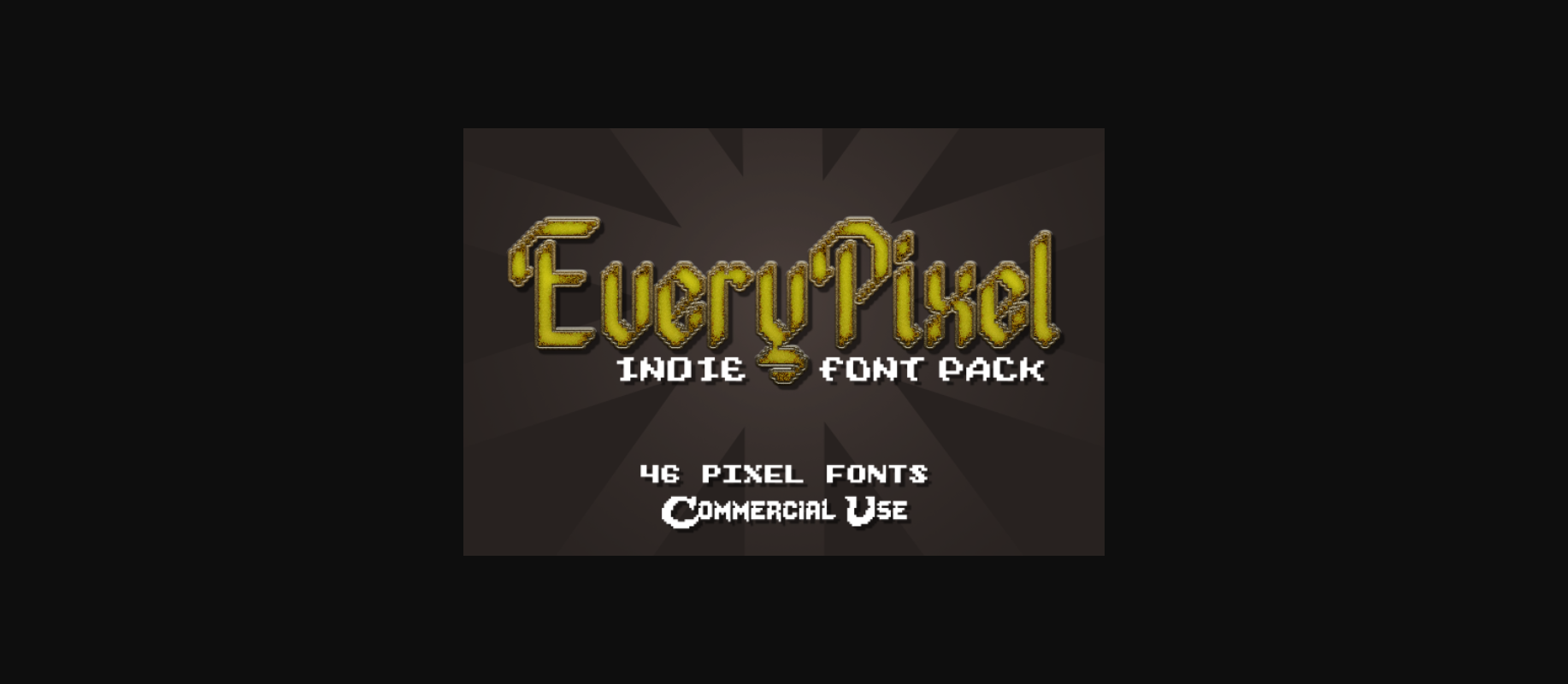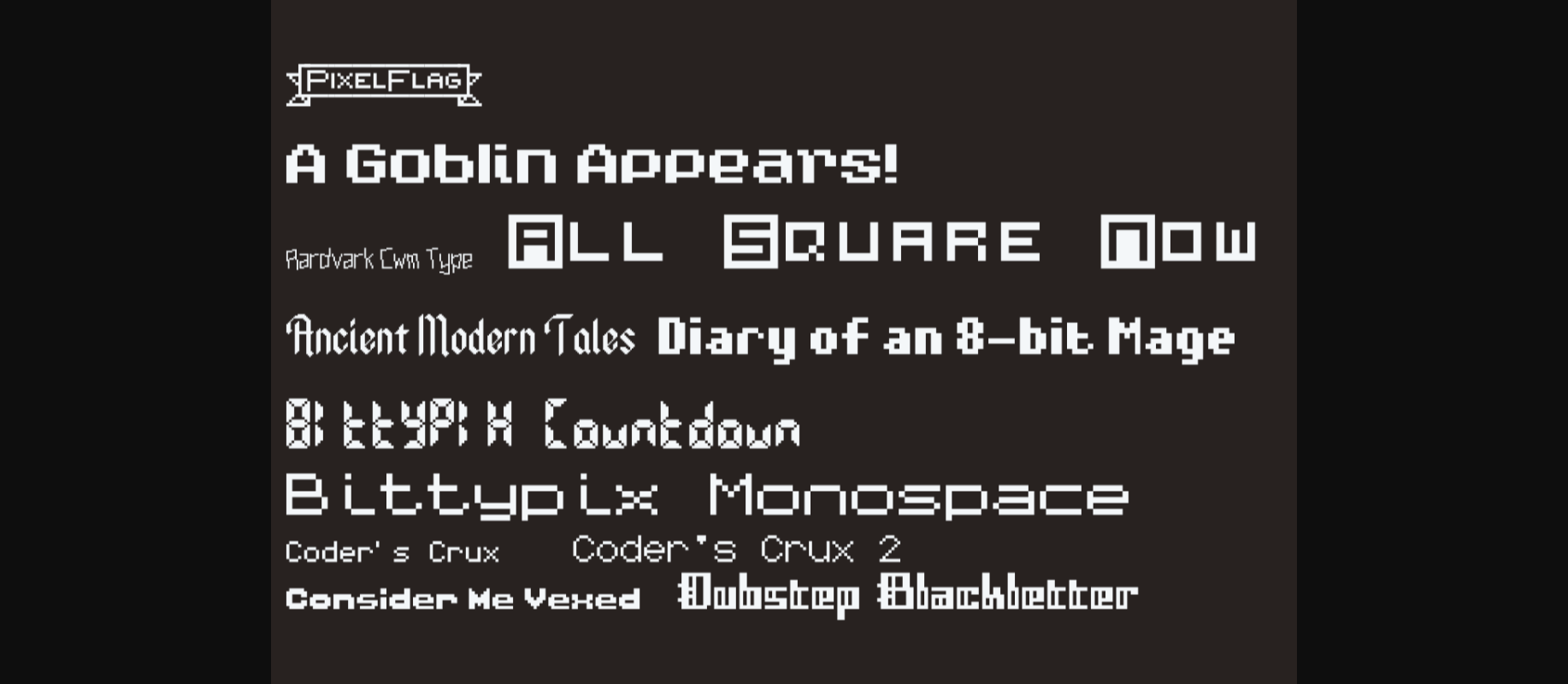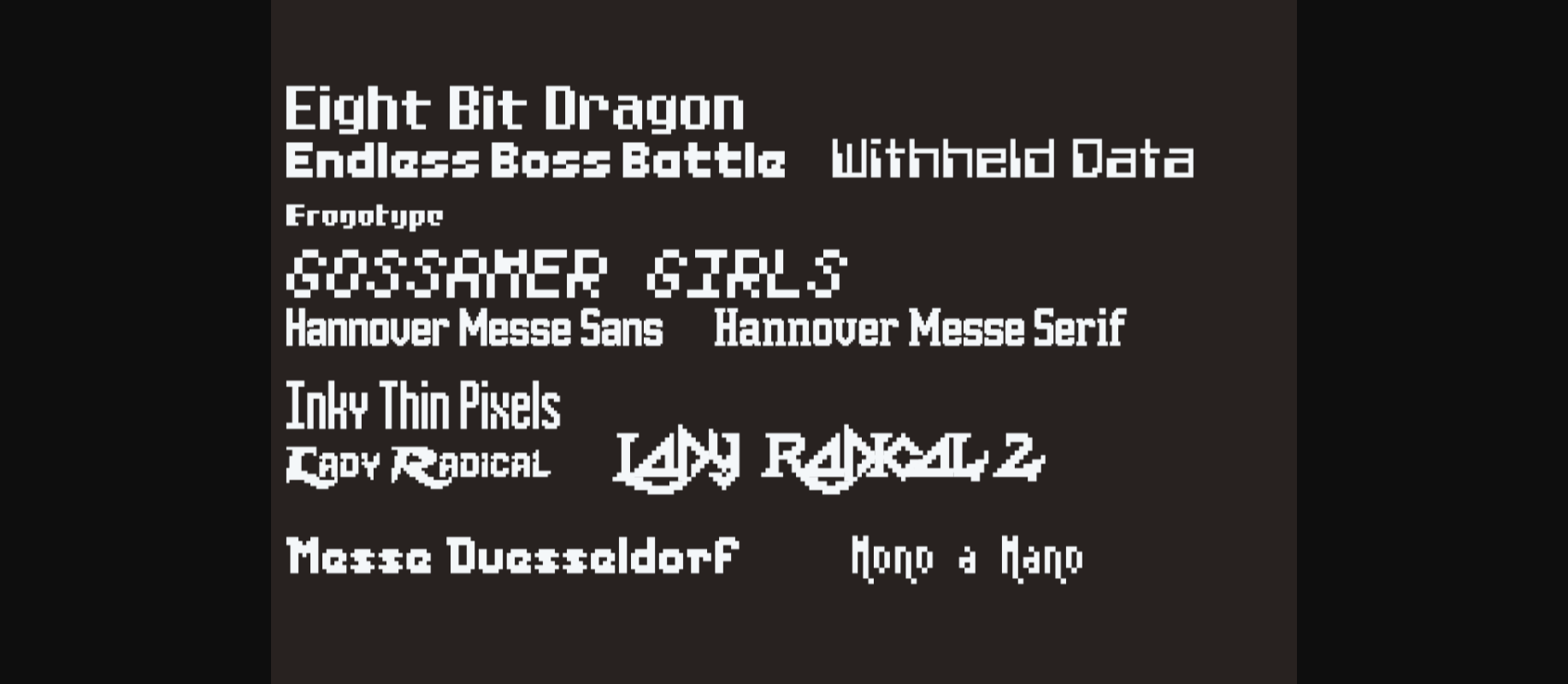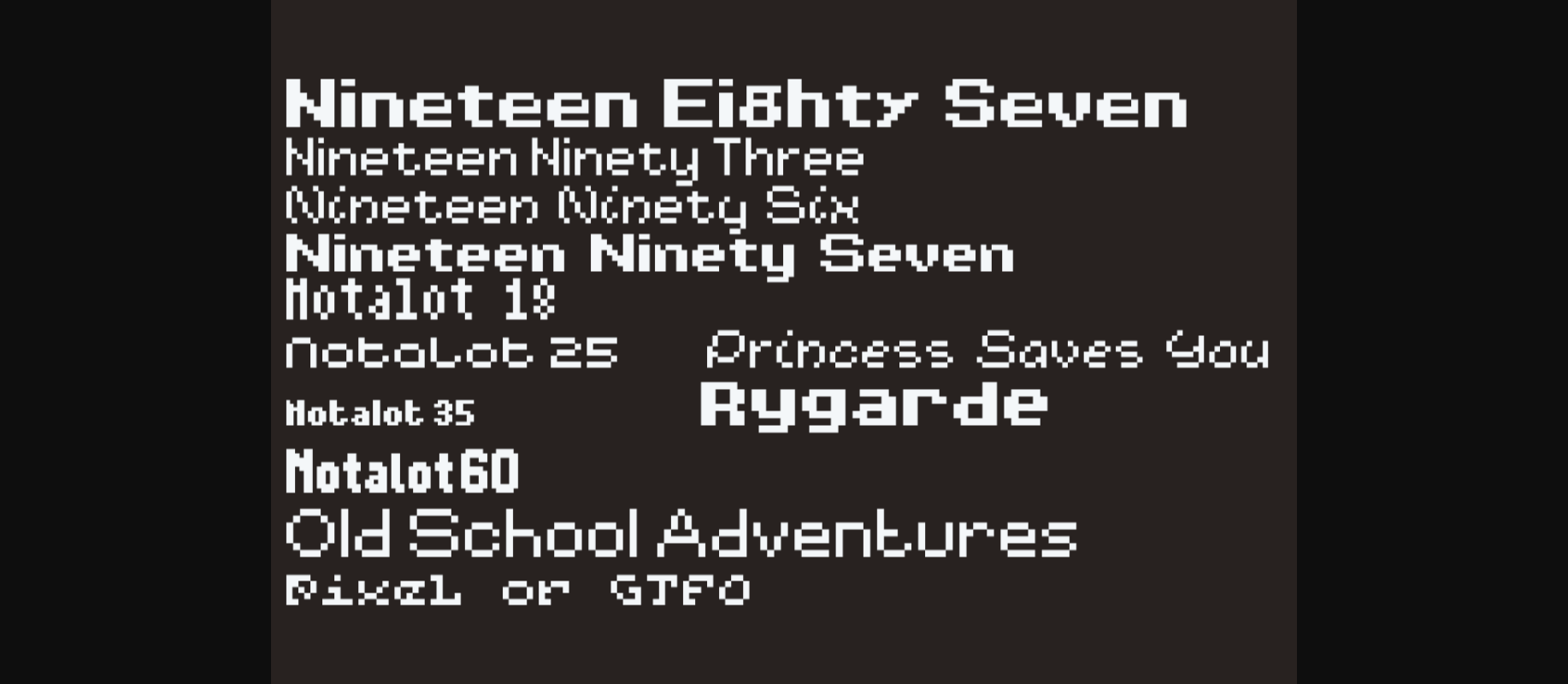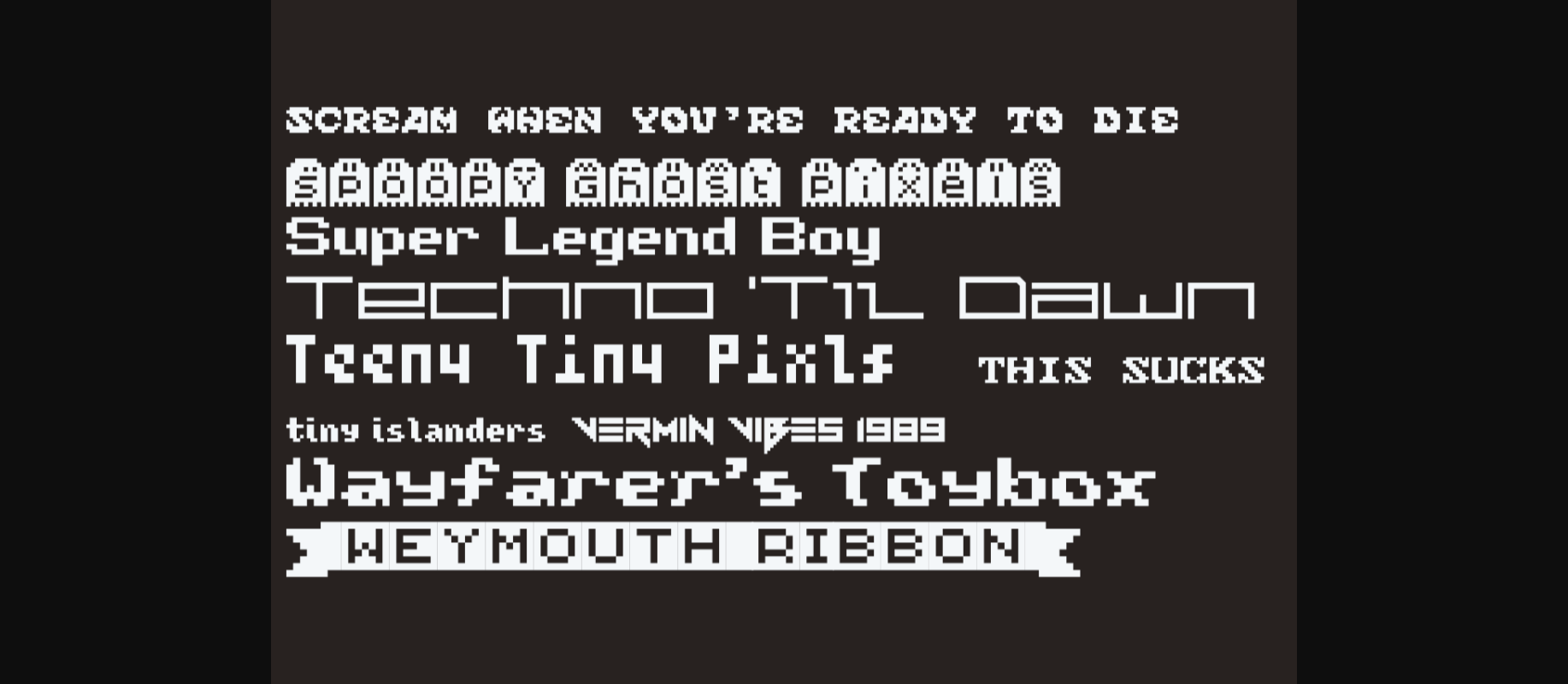
Every Pixel Font
About Every Pixel Font
Every Pixel: A Versatile Bundle of Pixel Fonts – Elevate your digital designs with a diverse collection of pixel fonts. Every Pixel offers a range of meticulously crafted, pixel-perfect typefaces to add a touch of nostalgia and precision to your projects. Perfect for retro gaming, pixel art, or any creative endeavor that demands crisp, blocky text.